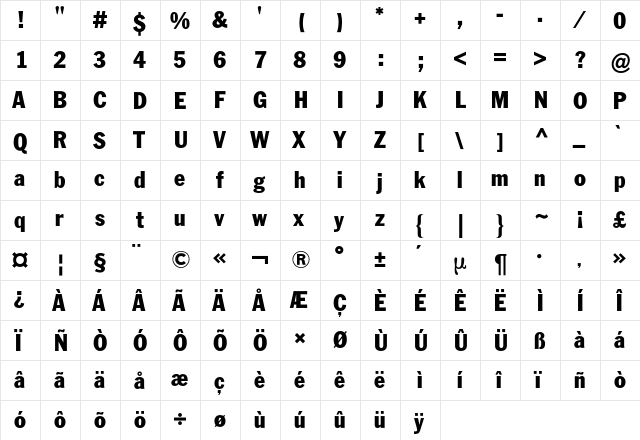
FranklinATFCondensedBQ Regular
Design Context for FranklinATFCondensedBQ Typeface
FranklinATFCondensedBQ is a composed and adaptable typeface that performs quietly and consistently across a wide range of design contexts. Its narrow stance lets it pack a punch even in space-constrained designs.